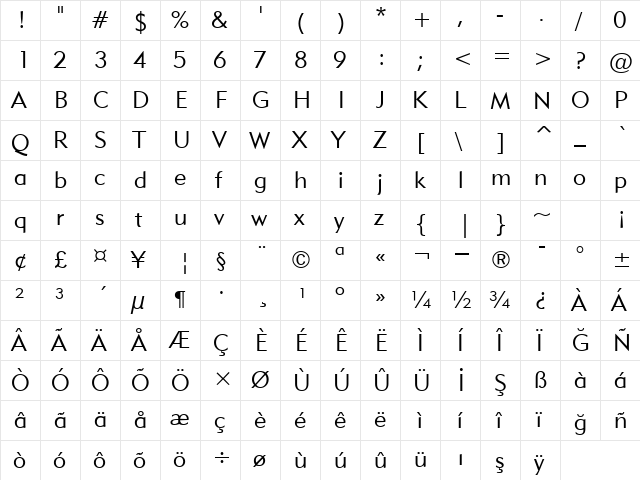
00541 Regular
Design Context for 00541 Typeface
00541 takes a measured approach to typography — its balanced proportions and neutral character make it a reliable workhorse for both digital and print work.